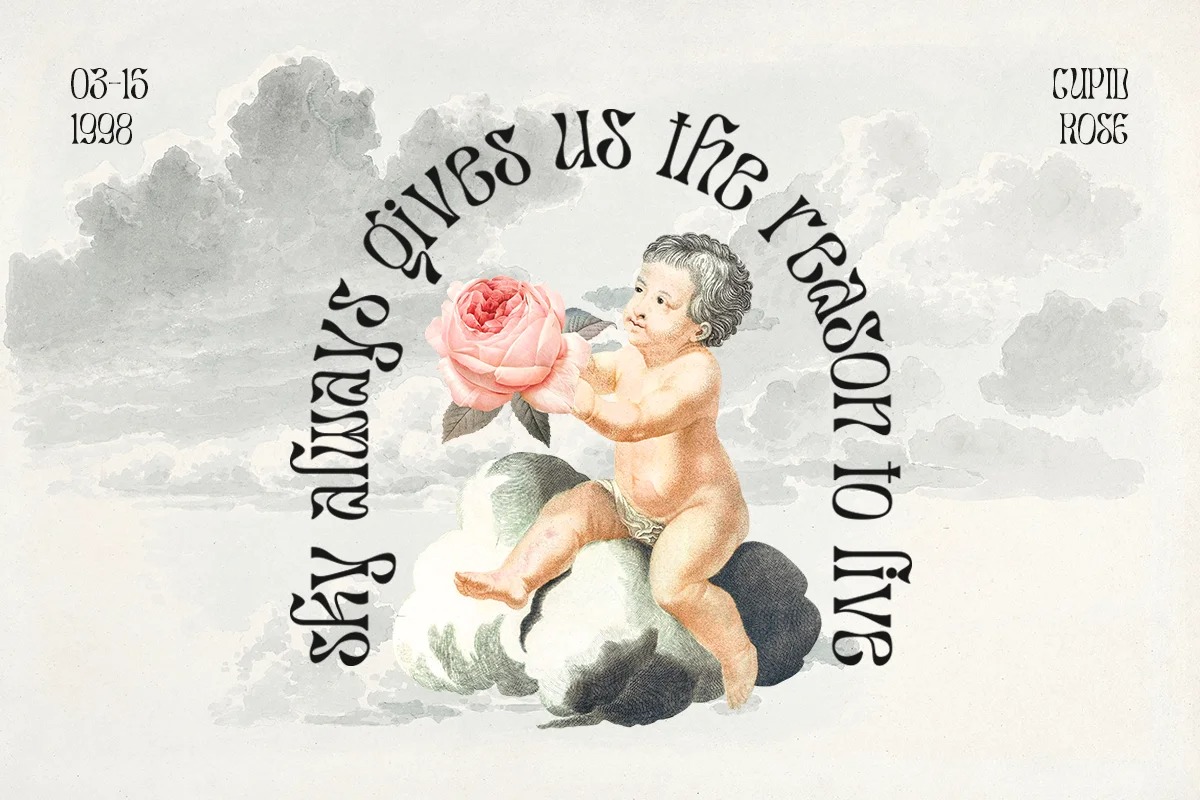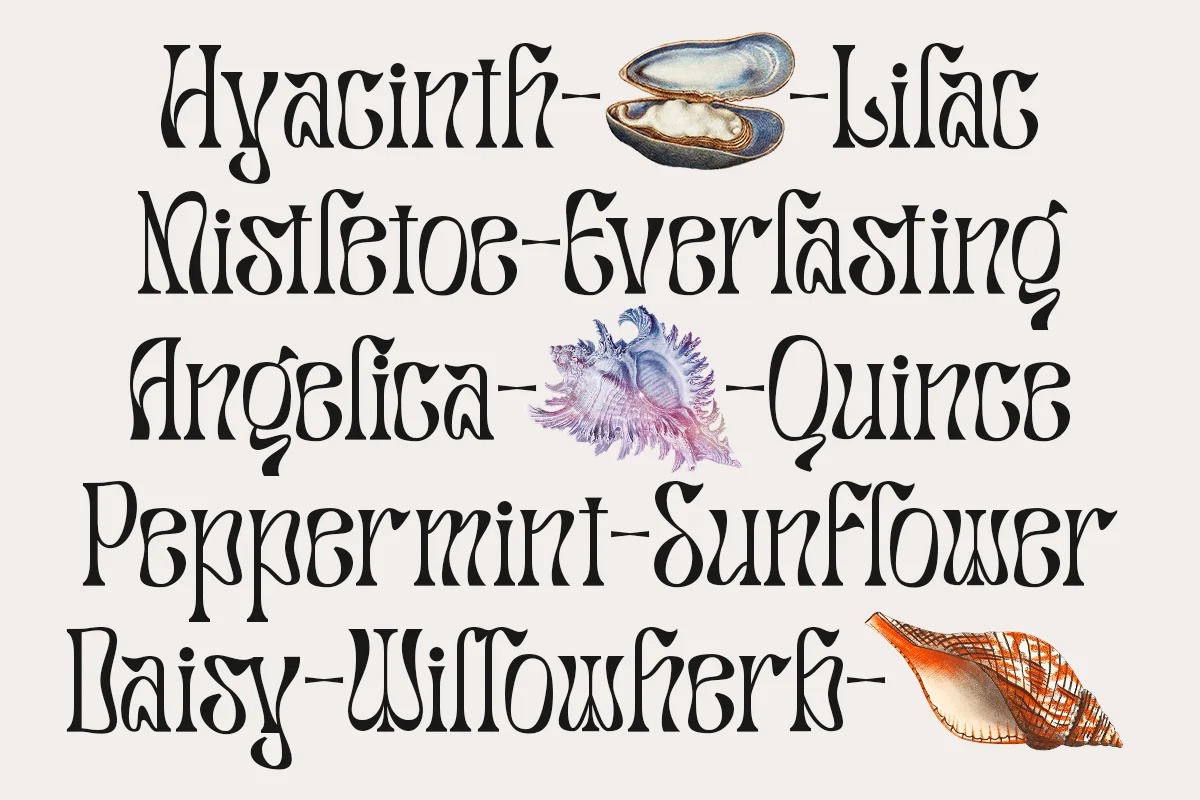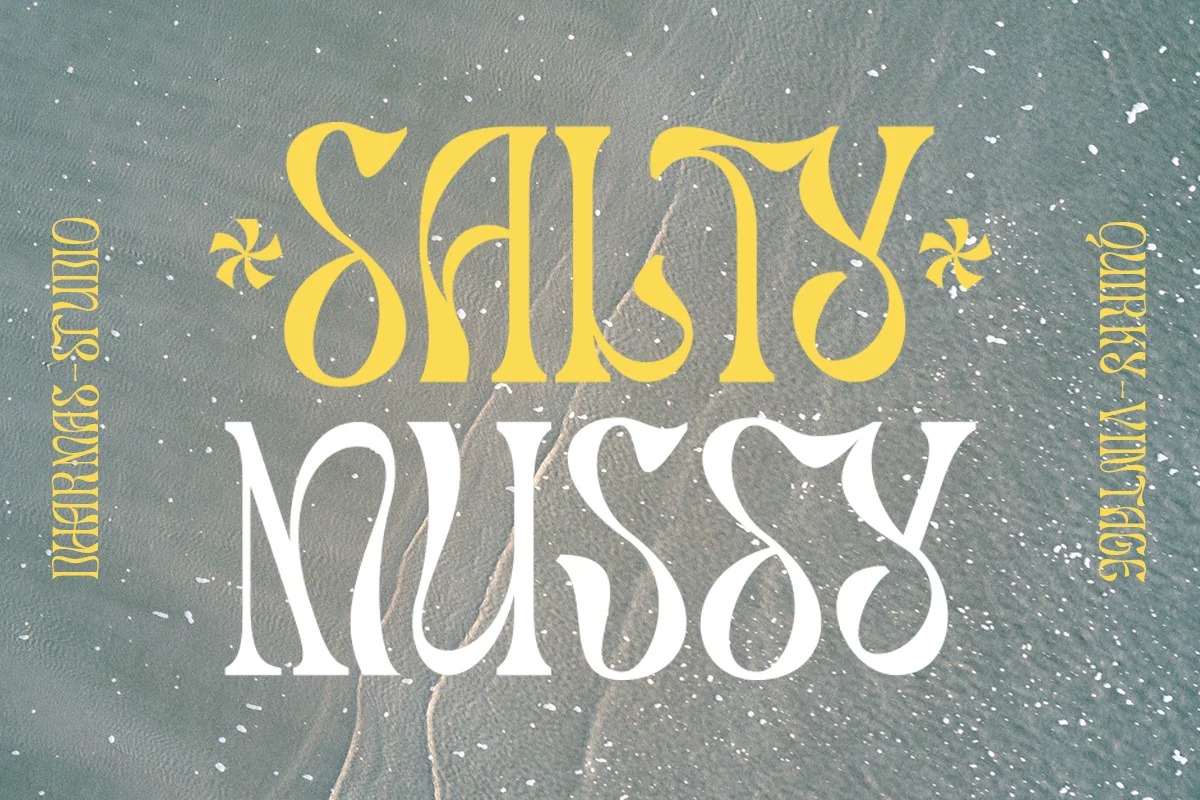
Salty Mussy Font
Salty Mussy Display Font
It’s a vintage and fun typeface from designer Dharmas Studio. This typeface has can be used for retro theme or modern looks. This font has a beautiful uppercase and lowercase, so it can show more options for your project!
Salty Mussy – This font is also included in the psychedelic style which can be very suitable for use in many projects such as street art design, posters, magazines, quotes for Instagram, and many more!